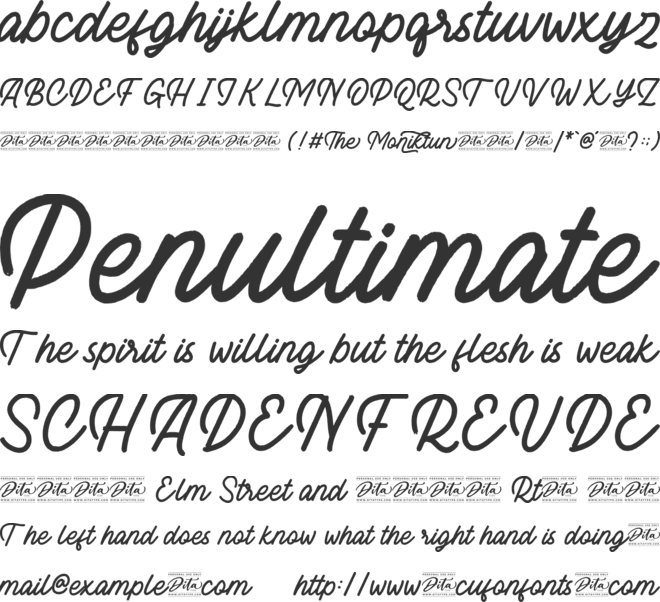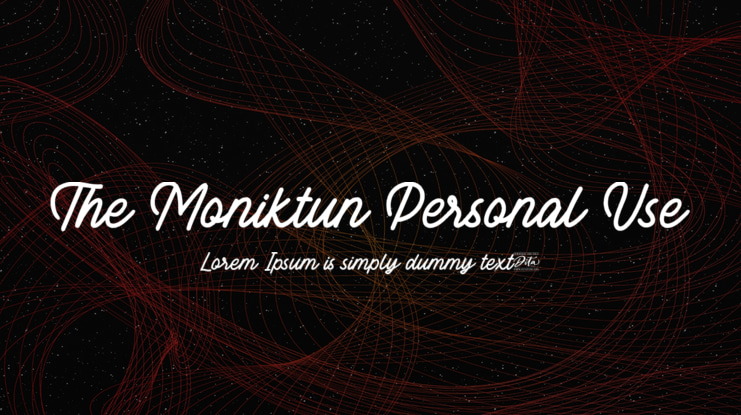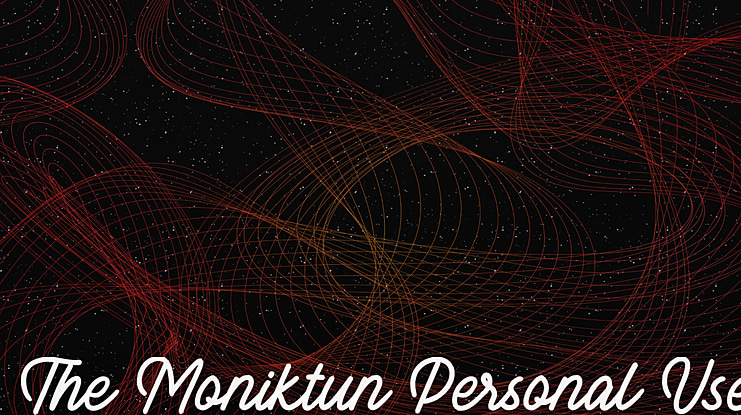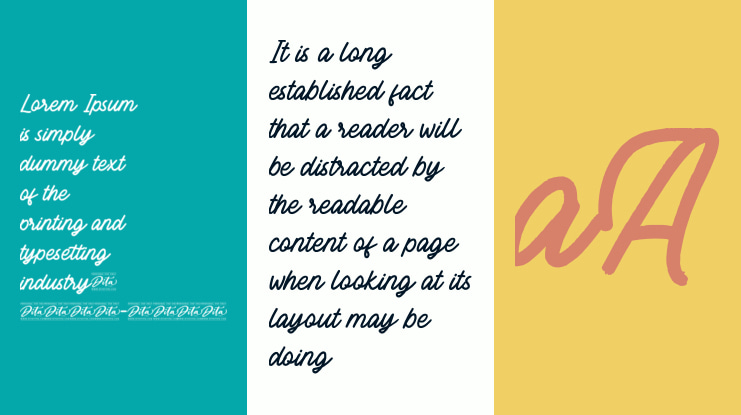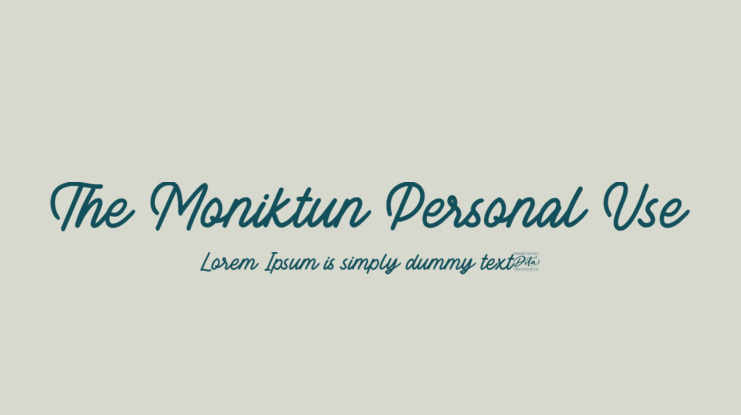
The Moniktun is a monoline script font. Made for any professional project branding that need a modern and attractive typeface. It is the best for logos, branding and quotes. Every letter has a unique and beautiful touch.